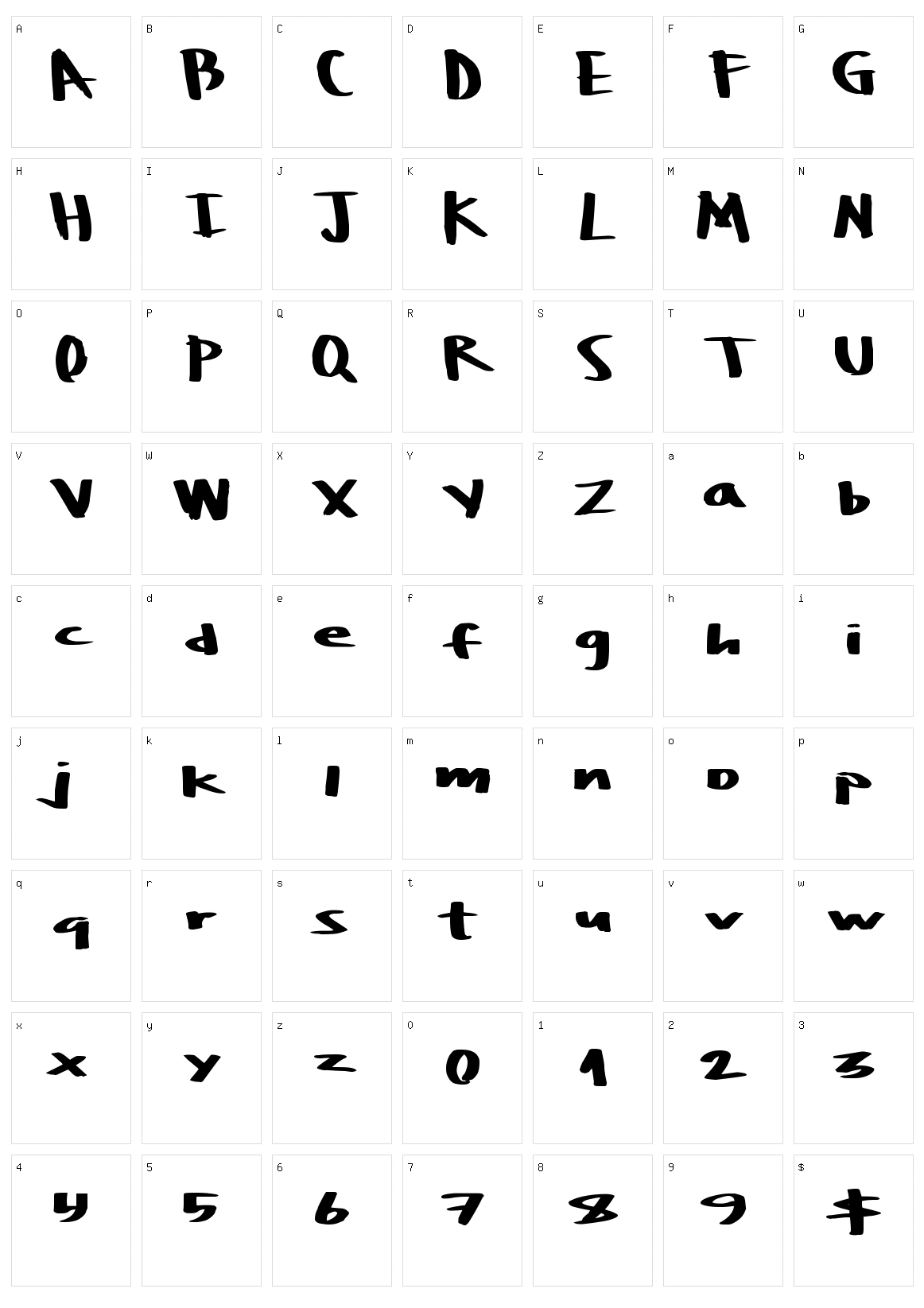
The free font Boulder Rough is carefully designed by Xerographer Fonts, showcasing a thoughtful balance of creativity and usability and falls under the Script font style. When you download the ZIP file, it contains only 12.3 KB of font files, making it lightweight and quick to download. Please review the license details below to understand permitted usage and distribution rights. If license information is not available, we recommend using this font for personal projects only or contacting the author directly for commercial usage permissions.